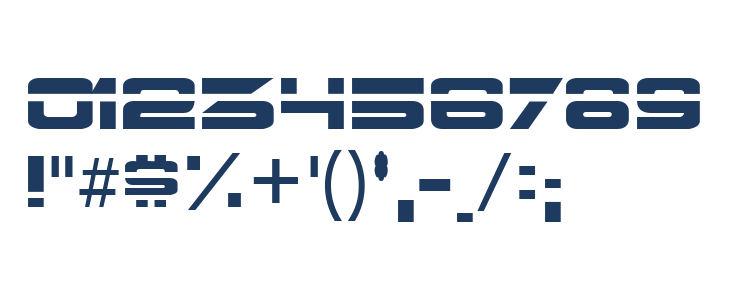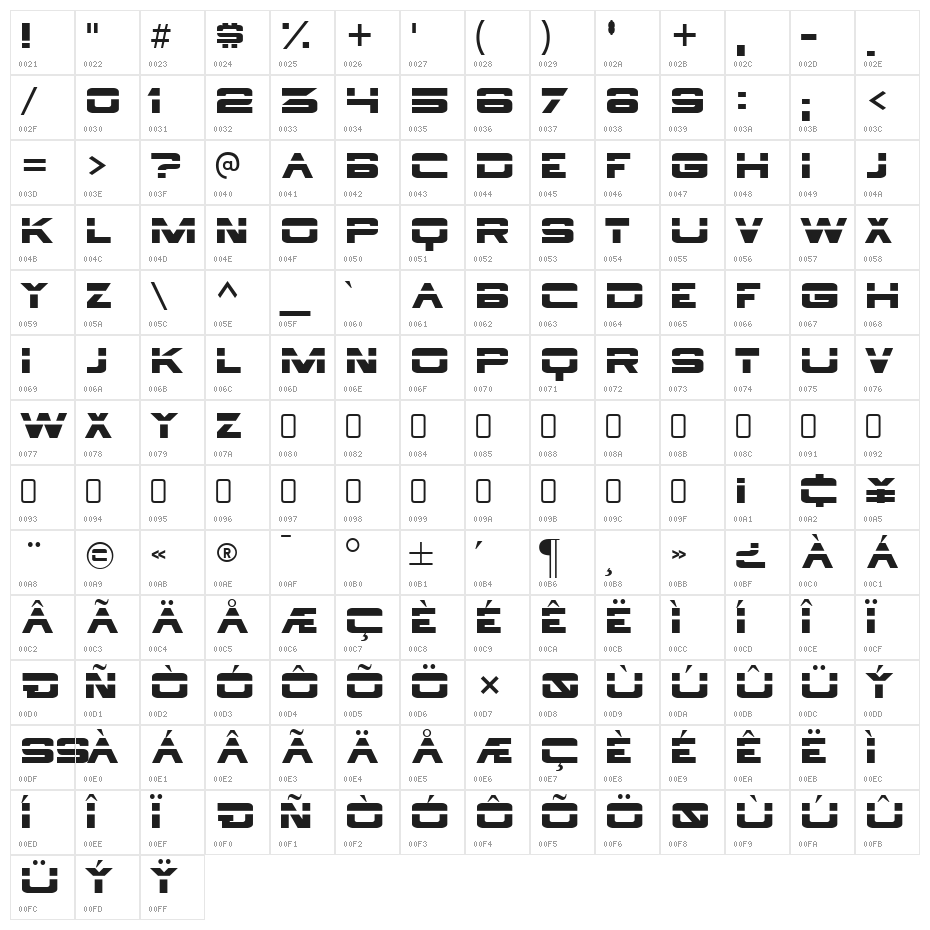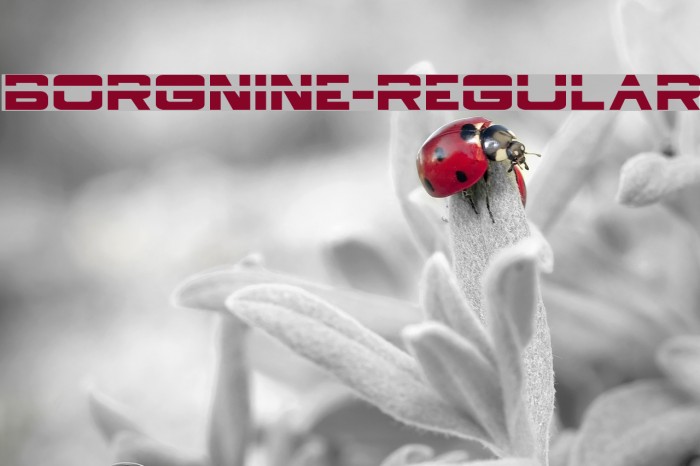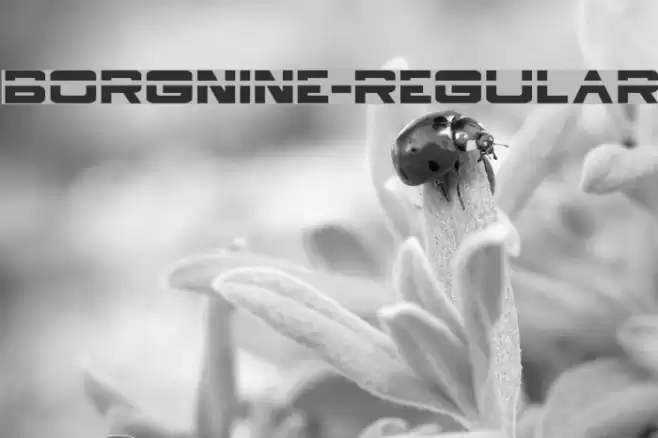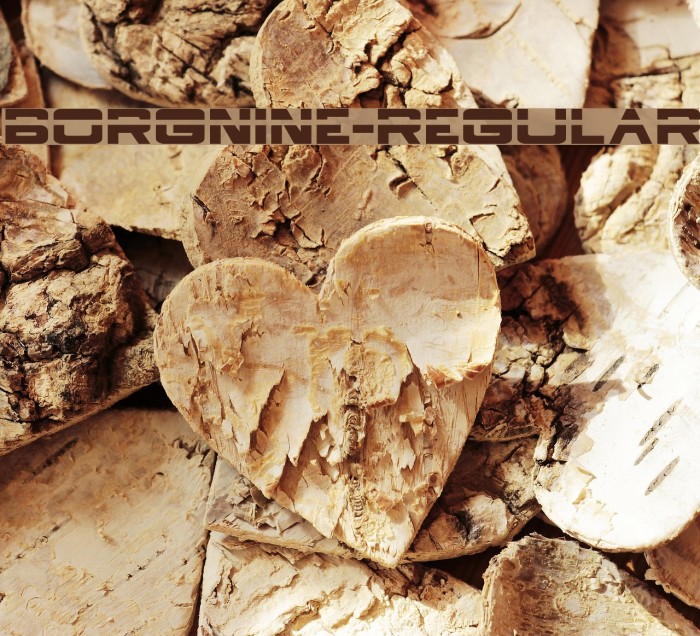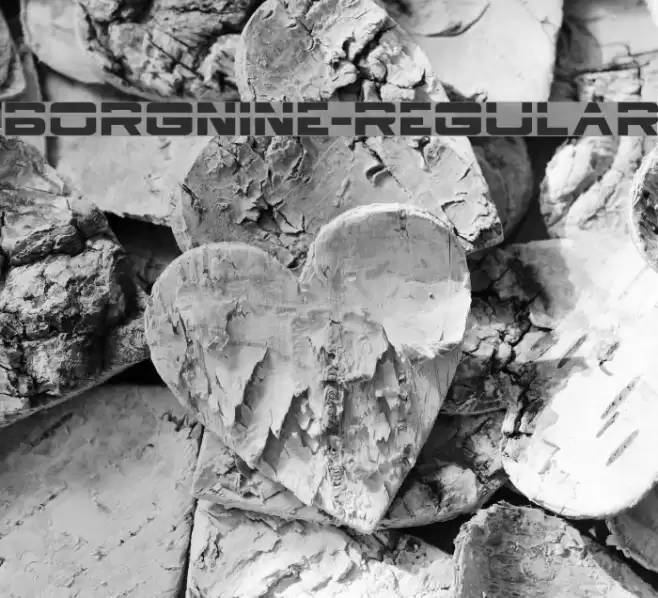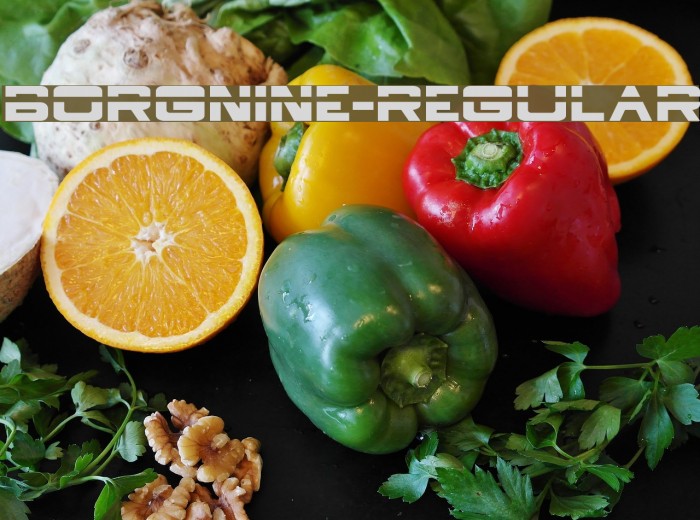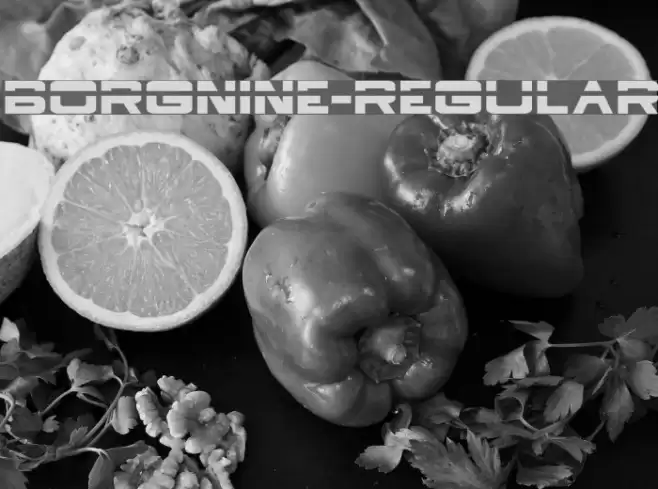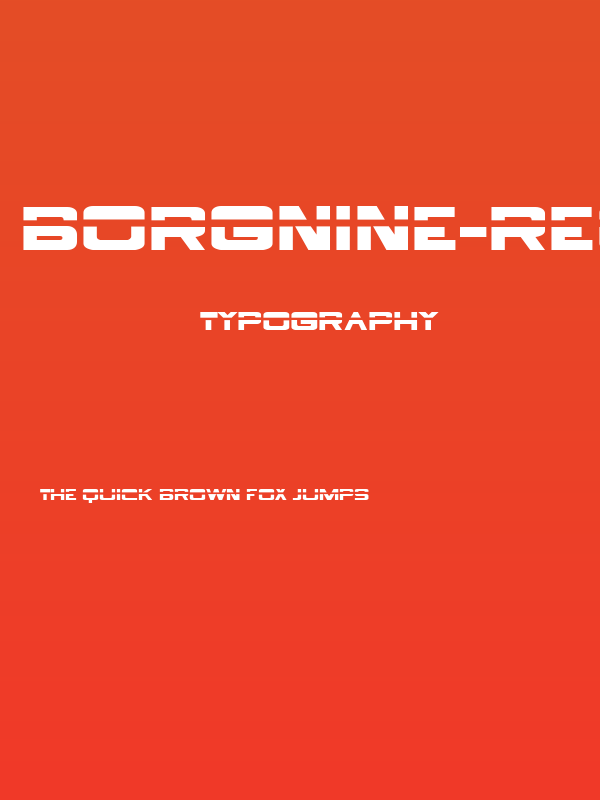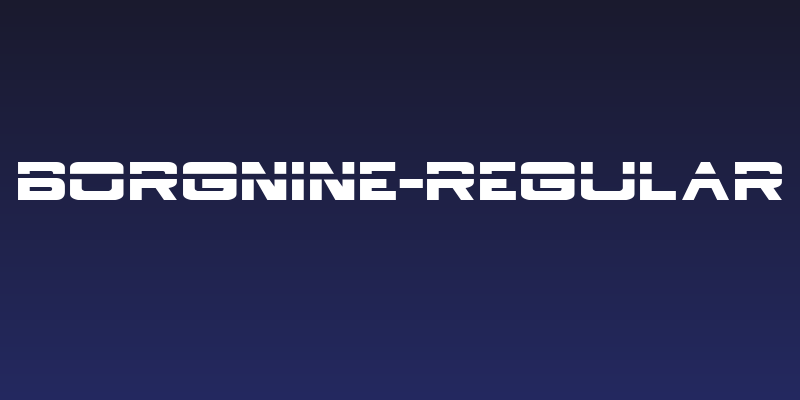
BorgNine-Regular Font
BorgNine-Regular Description
This font features a bold, geometric design with a futuristic and industrial feel. The characters are constructed with sharp angles and straight lines, giving it a mechanical and modern appearance. The uppercase letters are uniform in height, while the lowercase letters maintain a consistent style, emphasizing the font's cohesive look. The numerals are equally bold and geometric, matching the overall aesthetic. Special characters are designed to complement the main alphabet, maintaining the same angular and structured style. This font is ideal for projects that require a strong, impactful visual presence.
| Overall Style | Futuristic, Industrial |
| Proposed Projects | Ideal for technology branding, sci-fi posters, video game titles, and industrial-themed designs. |